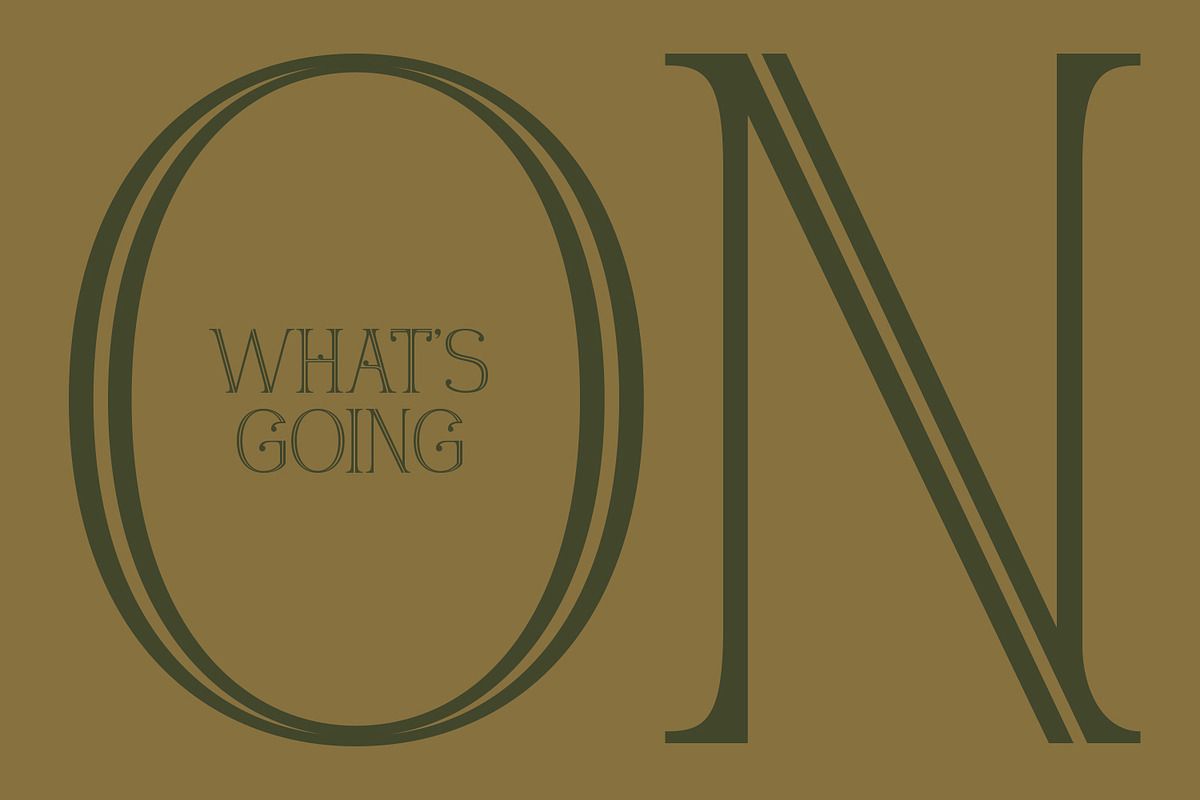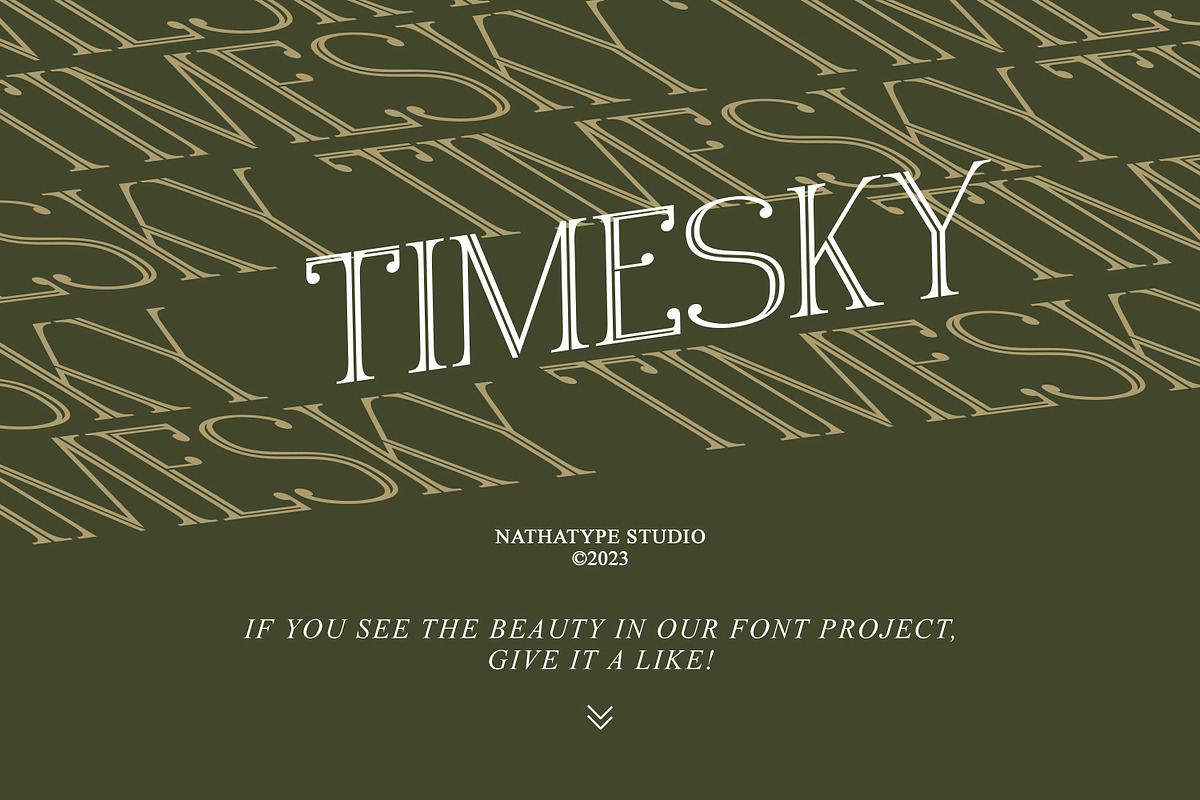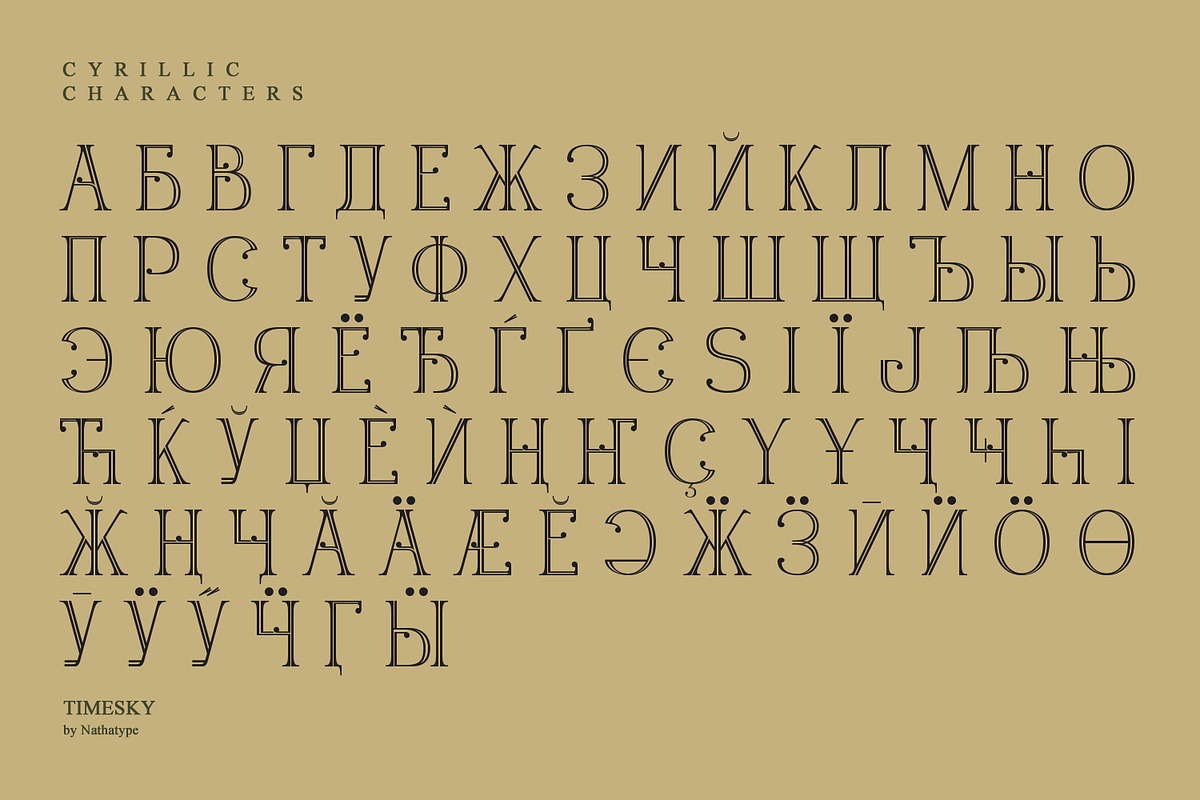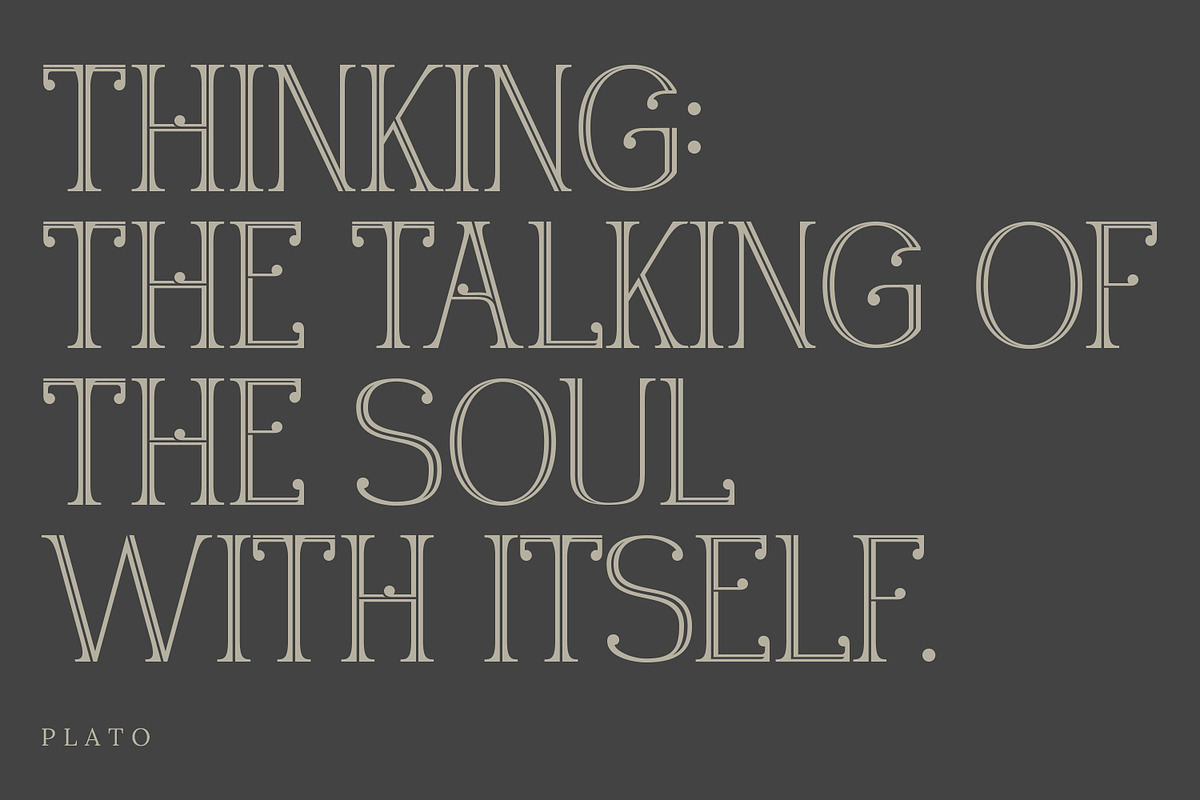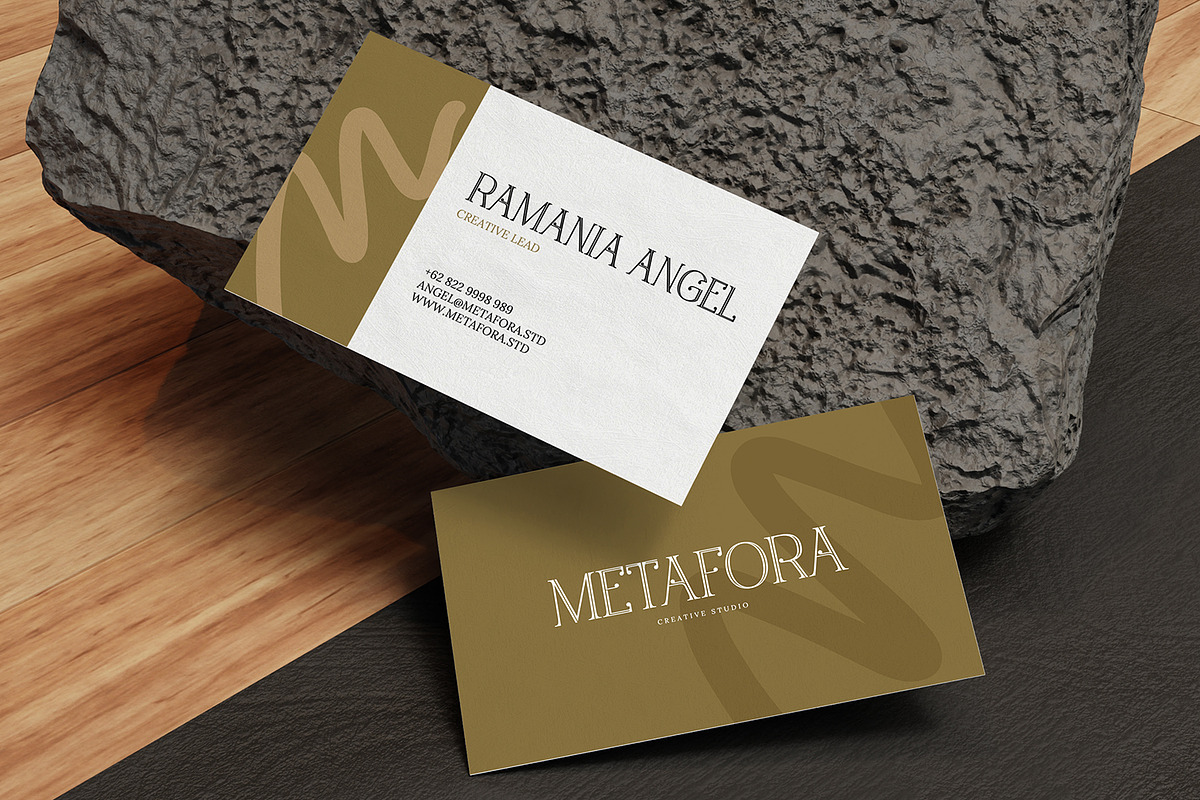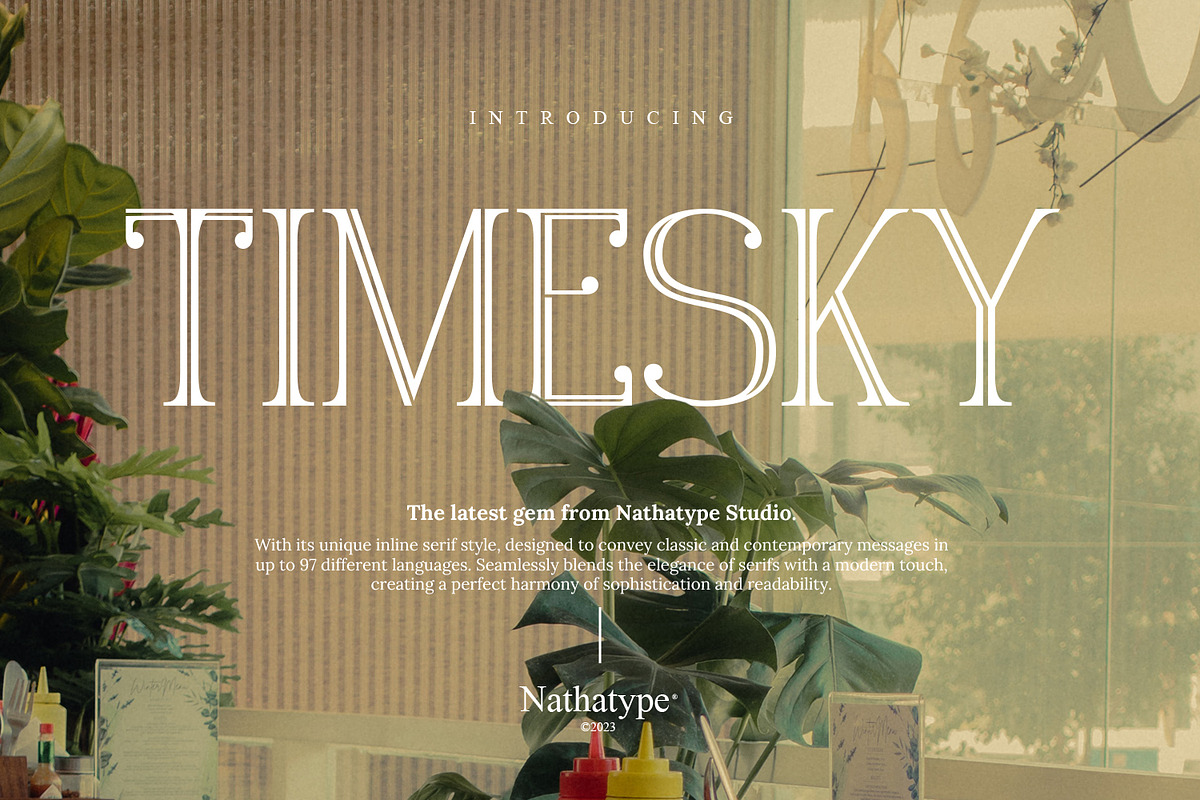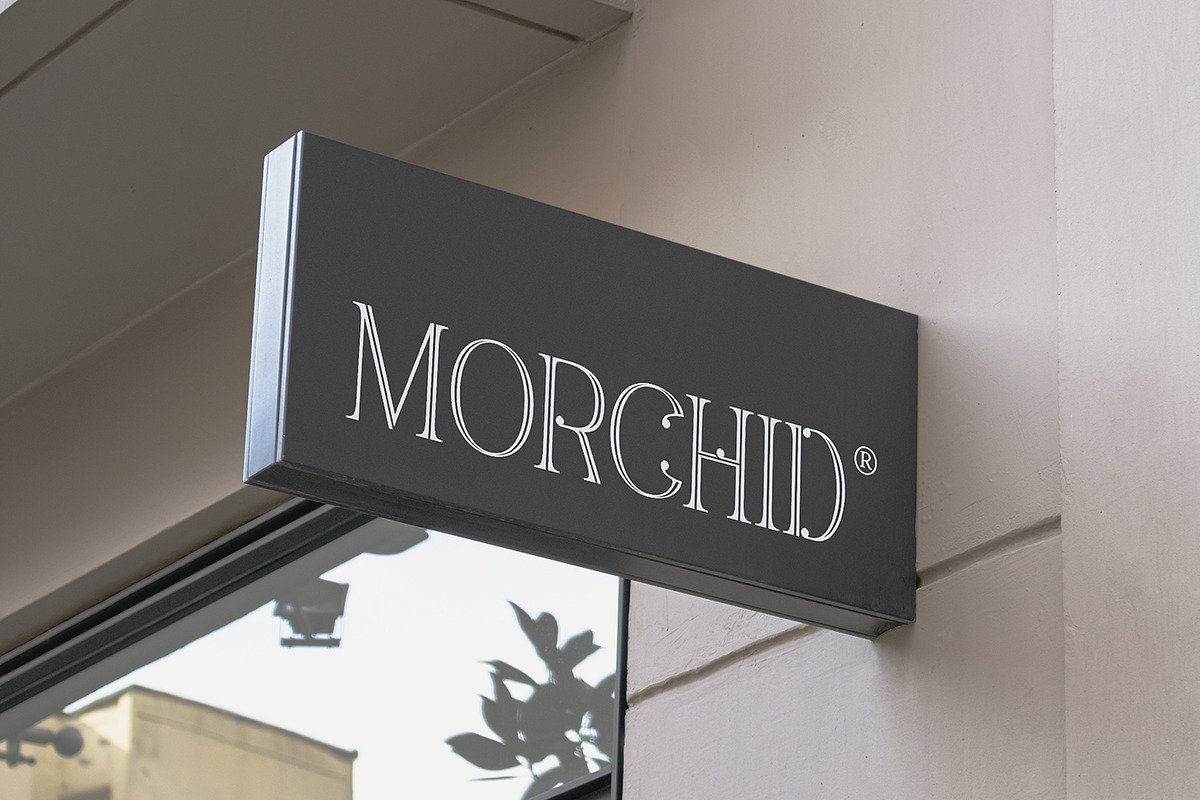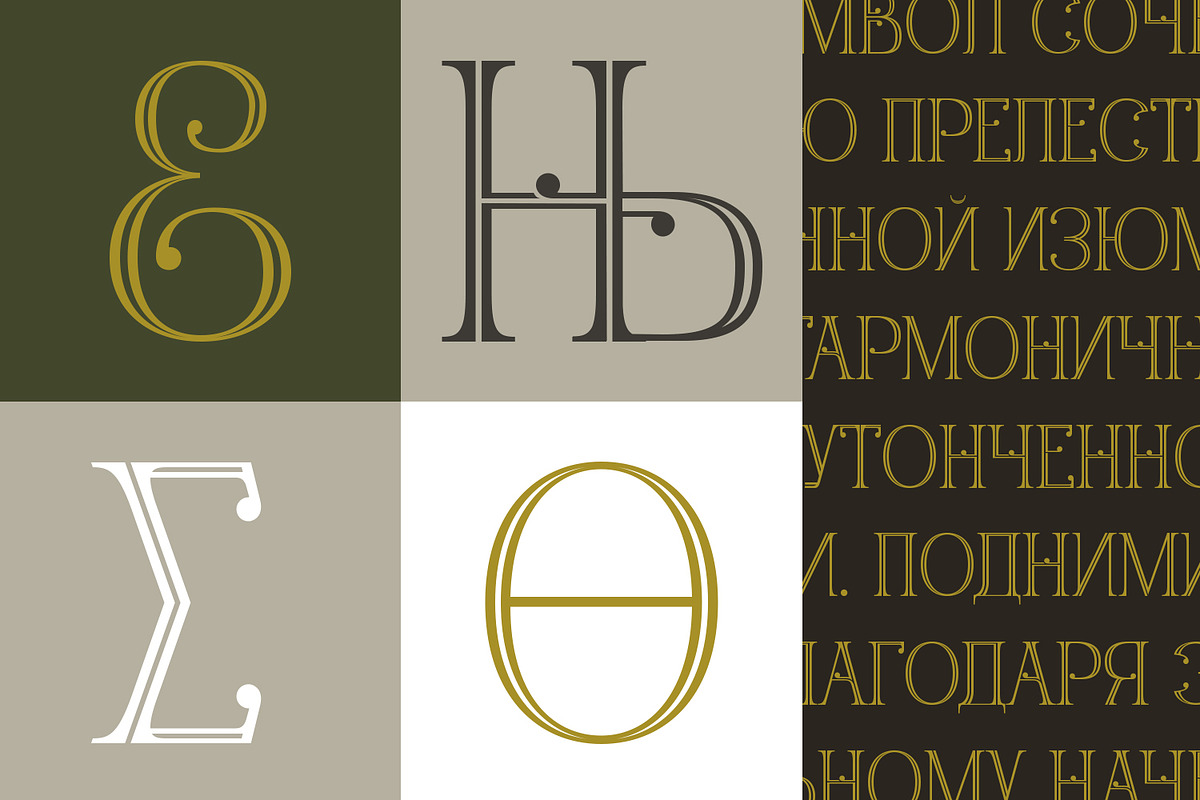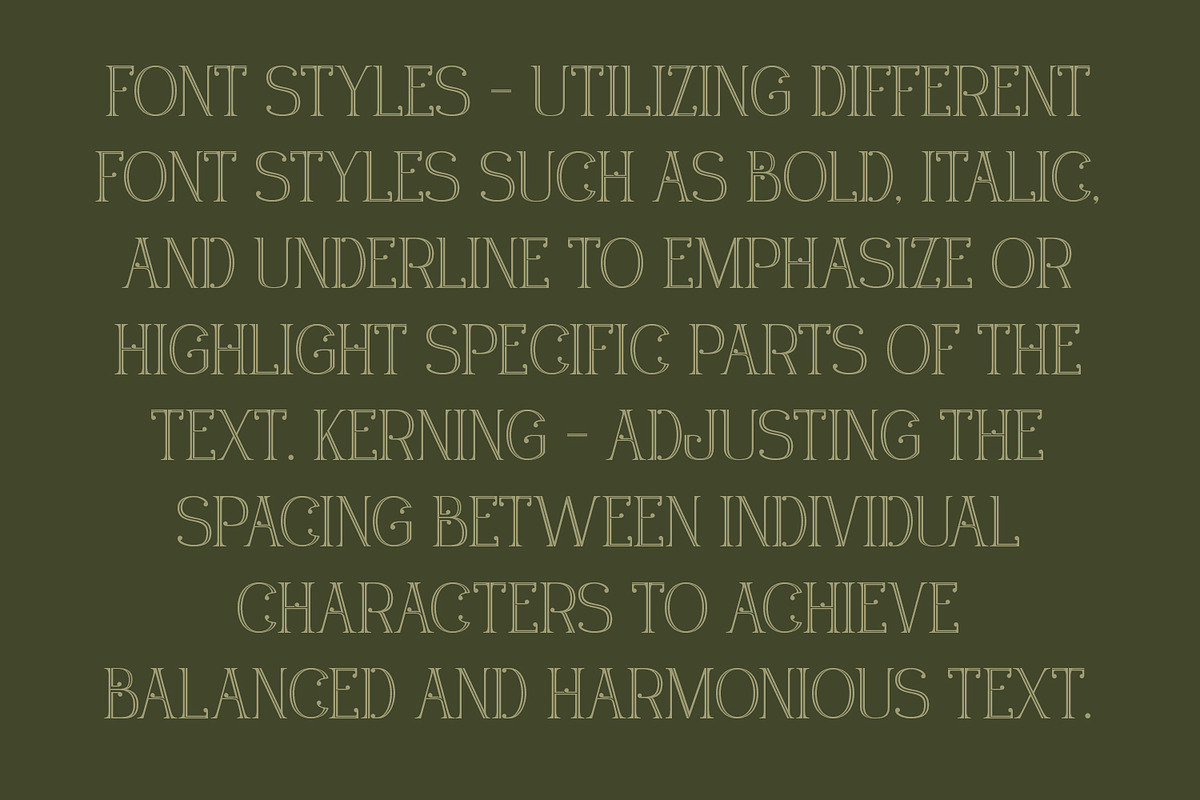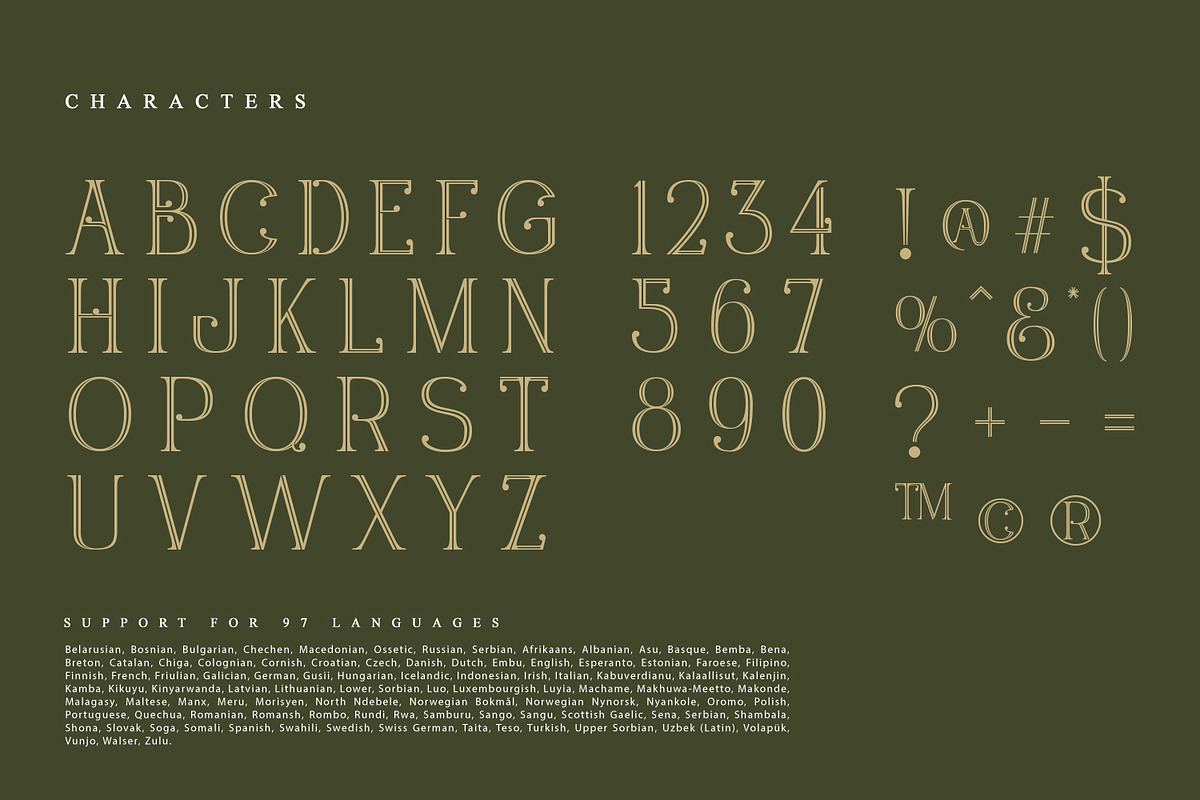
Timesky
Experience the timeless allure of Timesky, a serif font that effortlessly blends classic elegance with a modern sensibility. This uppercase typeface is a masterclass in sophisticated design, meticulously crafted to create an aesthetic looks. Each character is a testament to precision and balance, carrying a dignified presence that demands attention.
The generous spacing between characters not only enhances legibility but also lends a feeling of openness and modernity to your design. What sets Timesky apart is its unique inline design. The letters are outlined with a subtle, delicate line that runs parallel to the edges, adding a touch of contemporary flair. This inline style brings a sense of depth and dimension to the font, creating an interesting visual contrast that captivates the eye. Enjoy the features here.
Timesky fits in headlines, logos, posters, flyers, invitations, branding materials, print media, editorial layouts, and many more. Find out more ways to use this font by taking a look at the font preview.